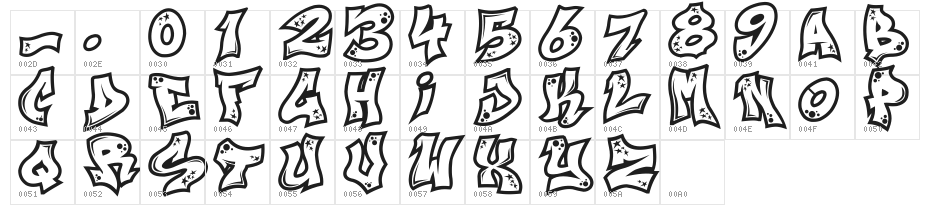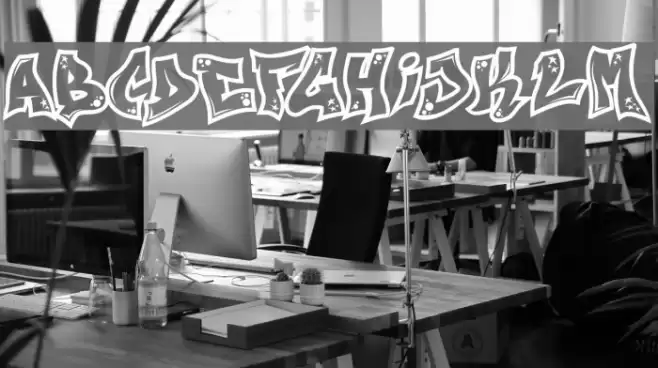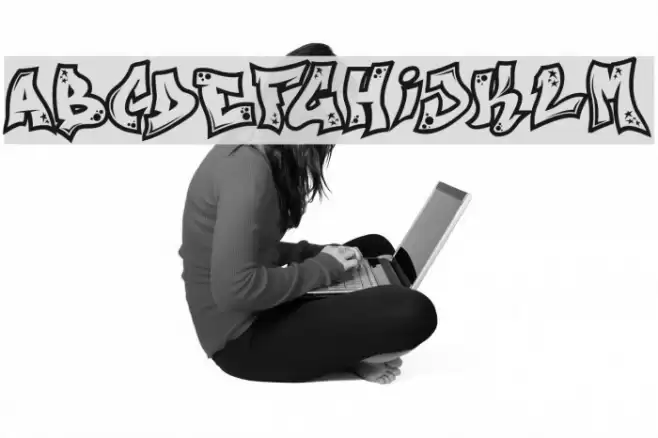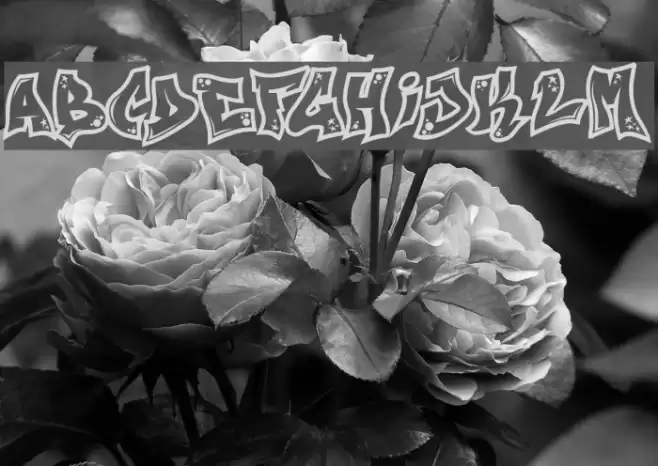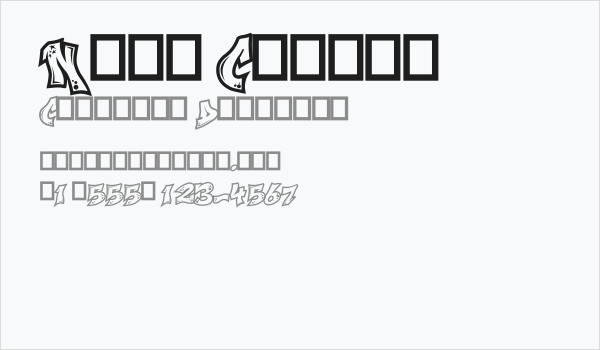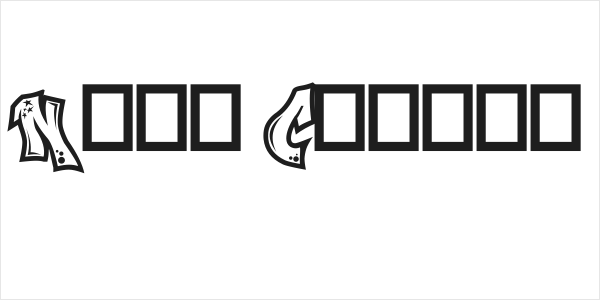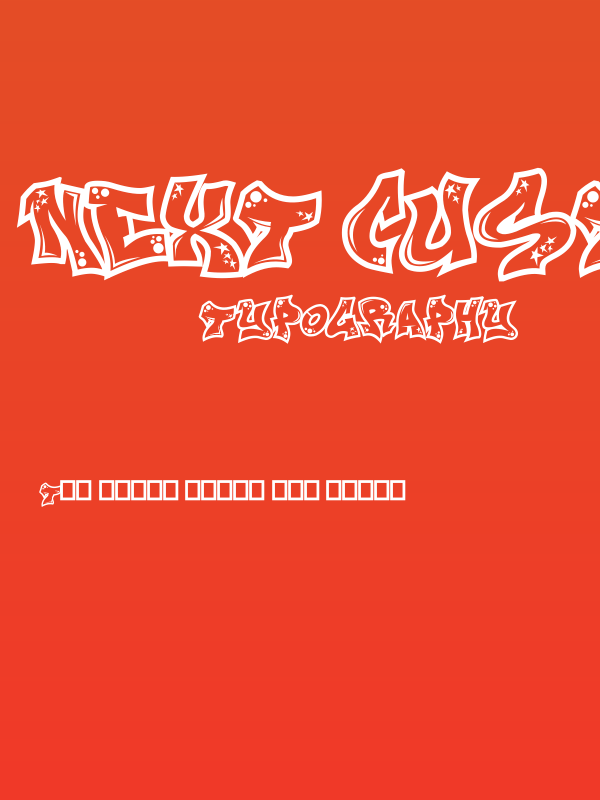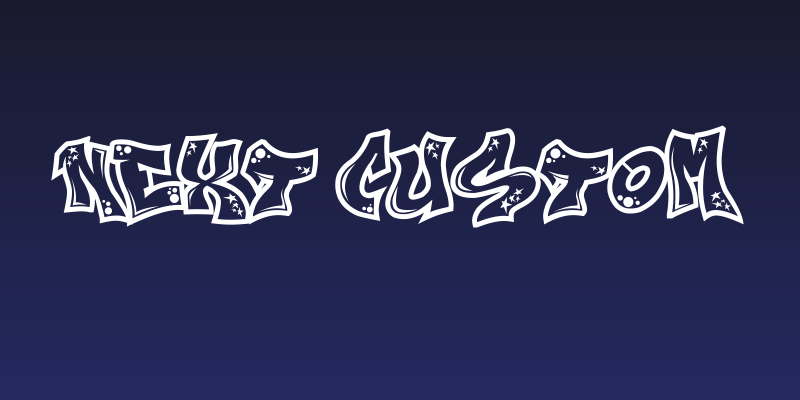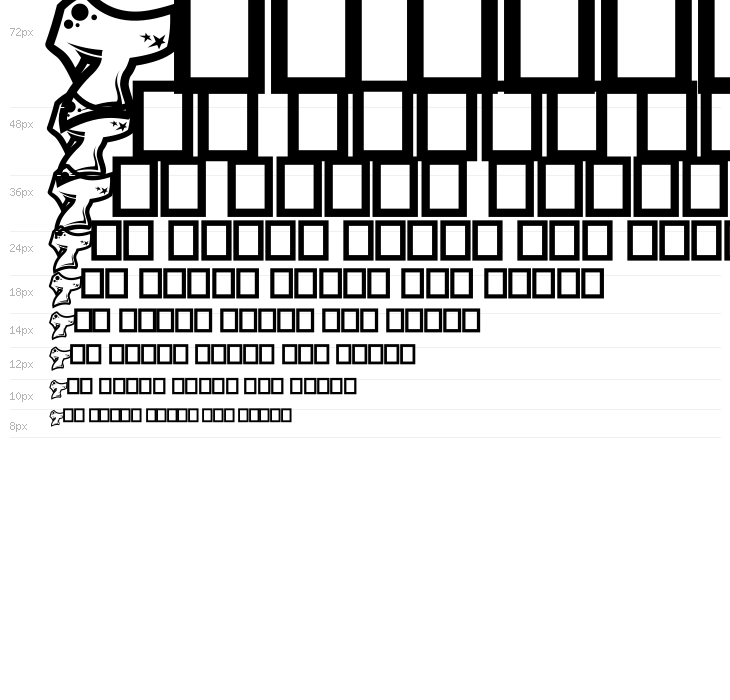
Next Custom Font
This font features a bold, graffiti-inspired style with a playful and rebellious edge. Each character is uniquely designed with dynamic curves and sharp angles, giving it a sense of movement and energy. The letters are adorned with star-like embellishments, adding a decorative touch that enhances its street-art aesthetic. The font maintains a consistent thickness throughout, ensuring readability while still embracing its artistic flair. Its distinctive appearance makes it ideal for projects that require a bold statement or an urban vibe.
Overall StyleUrban, Rebellious, Artistic
Proposed ProjectsPerfect for street art designs, urban-themed posters, music album covers, and edgy branding projects.